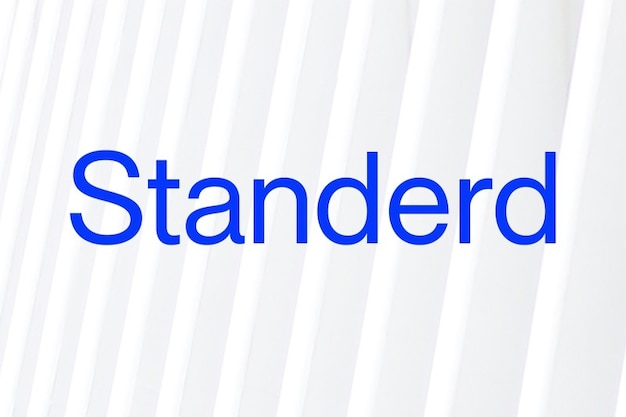
Standerd Font
Introducing Standerd, where simplicity meets classic elegance in a font that effortlessly communicates clarity and timeless aesthetics. With its clean lines and balanced proportions, Standerd is the ideal choice for any project where you want your message to shine through clearly and beautifully. Whether you're designing a sleek logo, crafting a sophisticated document, or enhancing your website's readability, Standerd is the font that elevates your content to a whole new level of refinement. Choose Standerd and make a statement that's effortlessly elegant.